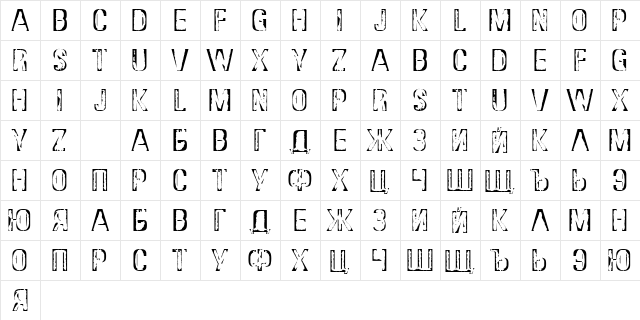
DS Stamp Cyr Regular
Design Context for DS Stamp Cyr Typeface
DS Stamp Cyr has the rough pragmatism of spray-painted stencil signage, adding a raw, street-level authenticity to designs.
Ideal for industrial branding, streetwear, military-adjacent aesthetics, and urban signage projects.